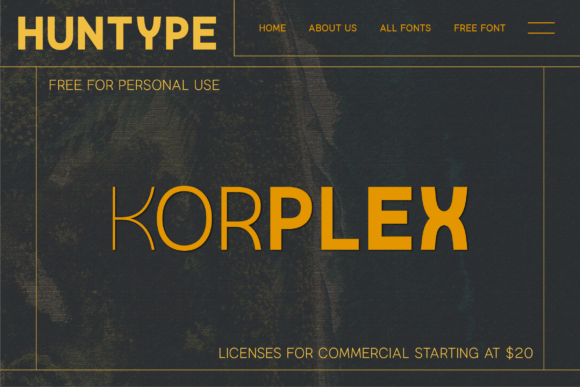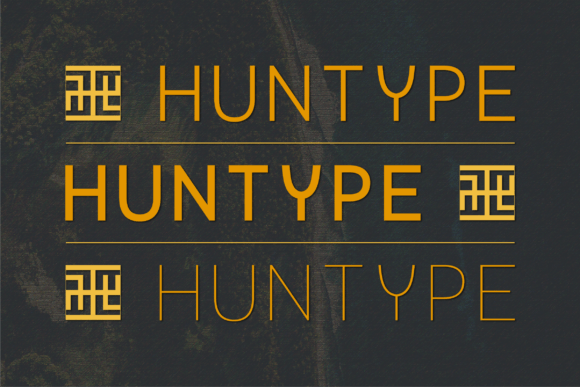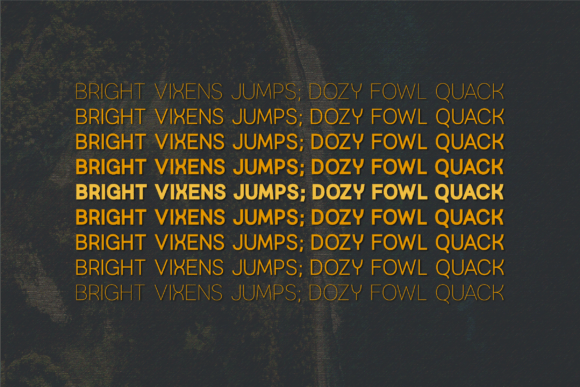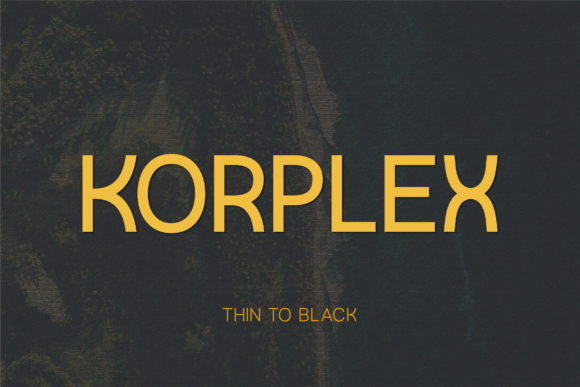
Introduction to Korplex Font
It is a modern and versatile font family, a blend of clean geometric forms and subtle sophistication.
Its adaptable style is evident in the precise letterforms and contemporary aesthetic A harmony of sharp lines and gentle curves.
Key Features of Korplex Font